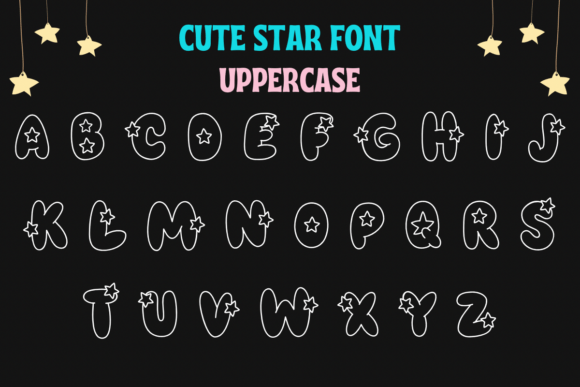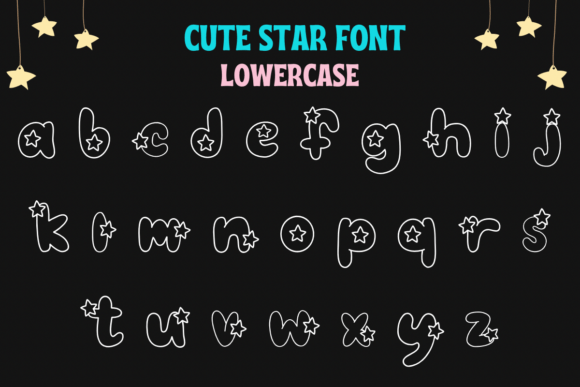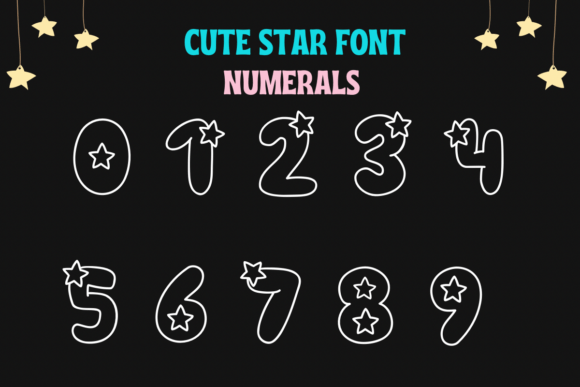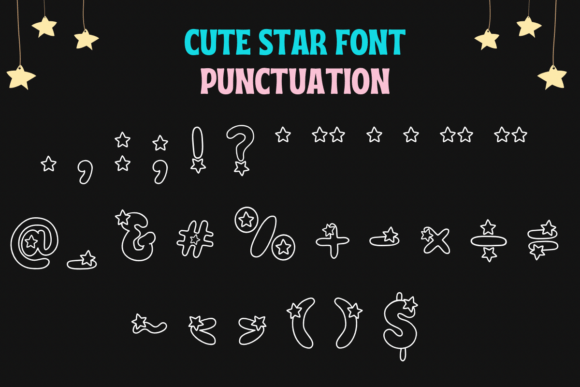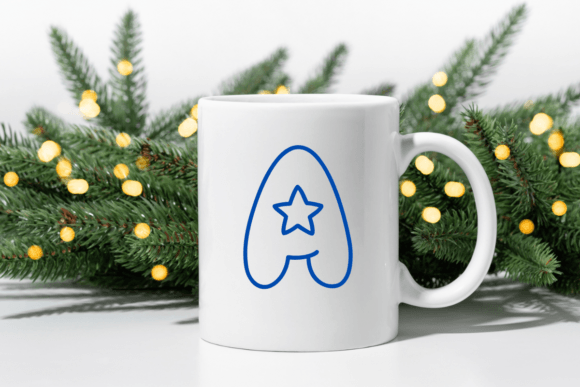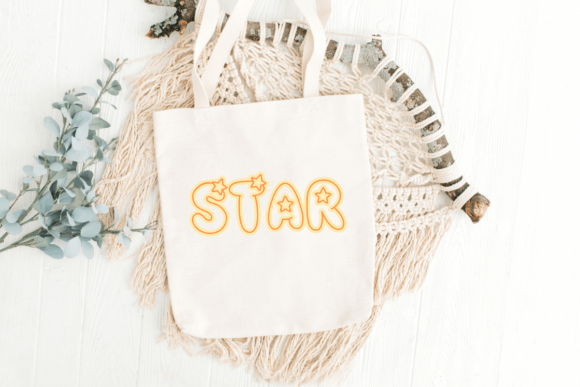
Cute Star Font: Add a Touch of Magic to Your Designs
Are you looking for a font that can add a playful and charming touch to your designs? Look no further than the Cute Star Font! This fun decorative font features bubbly, rounded letters adorned with little stars, making it perfect for creating cheerful and magical designs.
What is Cute Star Font?
Cute Star Font is a unique and whimsical font that is sure to capture the attention of your audience. Each letter in the font is carefully designed with a bubbly, rounded shape and embellished with tiny stars, giving it a playful and charming appearance. The font is perfect for designers and crafters who want to add a touch of magic to their designs.
Features of Cute Star Font
- Bubbly and Rounded Letters: The Cute Star Font features bubbly and rounded letters that are sure to add a playful touch to your designs.
- Little Stars on Each Letter: Each letter in the font is adorned with tiny stars, giving it a charming and magical appearance.
- Perfect for Cheerful Designs: The font is perfect for creating cheerful and upbeat designs that are sure to capture the attention of your audience.
- Great for Adding a Touch of Magic: The Cute Star Font is great for adding a touch of magic to your designs, making it perfect for designs that require a whimsical touch.
Uses of Cute Star Font
The Cute Star Font is versatile and can be used in a variety of design projects, including:
- Party Invitations: The font is perfect for creating party invitations that require a playful and cheerful touch.
- Greeting Cards: The Cute Star Font is great for creating greeting cards that require a whimsical and magical touch.
- Social Media Graphics: The font is perfect for creating social media graphics that require a playful and upbeat touch.
- Branding and Packaging: The Cute Star Font can be used in branding and packaging designs that require a unique and whimsical touch.
Tips for Using Cute Star Font
Here are some tips for using the Cute Star Font in your designs:
- Use it in Combination with Other Fonts: The Cute Star Font can be used in combination with other fonts to create a unique and visually appealing design.
- Experiment with Different Colors: The font looks great in a variety of colors, so don’t be afraid to experiment and find the perfect color for your design.
- Use it in Digital and Print Designs: The Cute Star Font can be used in both digital and print designs, making it a versatile font for designers.
The Cute Star Font is a fun and decorative font that is sure to add a playful and charming touch to your designs. With its bubbly and rounded letters adorned with little stars, it’s perfect for creating cheerful and magical designs. Whether you’re a designer or crafter, the Cute Star Font is a great addition to your font collection.
In conclusion, the Cute Star Font is a unique and whimsical font that is sure to capture the attention of your audience. With its playful and charming appearance, it’s perfect for creating cheerful and magical designs. So why not give it a try and add a touch of magic to your designs?